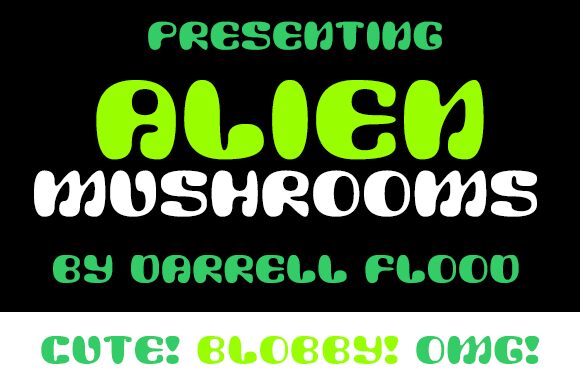
AlienMushrooms
Alien Mushrooms font by Darrell Flood is a free decorative display typeface that looks beamed in from a gleefully weird galaxy. Chunky, outlined letterforms sit beside spindly, spore-like symbols that feel half-mushroom, half-microbe, giving your text a gooey, otherworldly energy. The shapes wobble and sprout little antennae, so even a single word feels like a strange lifeform crawling across the page.
Using Alien Mushrooms, you can instantly theme sci‑fi posters, kids’ games, alien invasion party invites, quirky YouTube thumbnails, comic sound effects, toy packaging, and festival graphics. This free font shines when you set it big and bold, letting the bulbous silhouettes and spiky details stay legible. Pair it with a clean, minimal sans serif for body copy so the wild, alien letters stay the clear focal point.